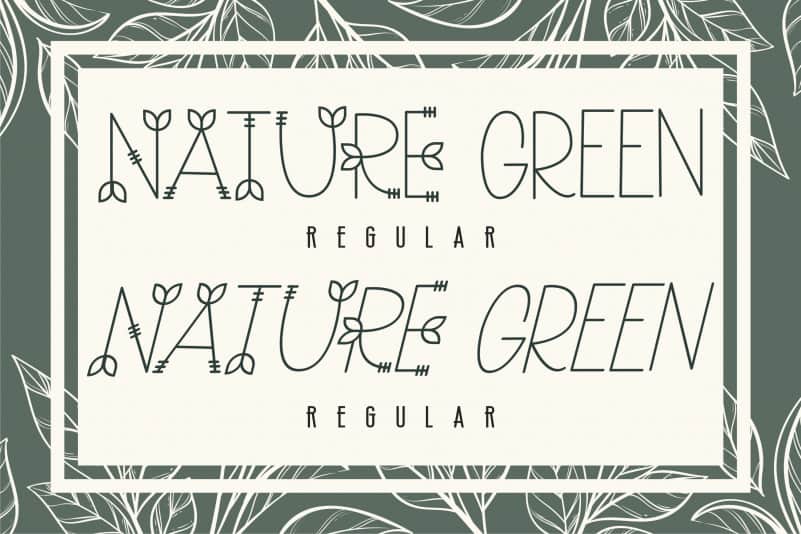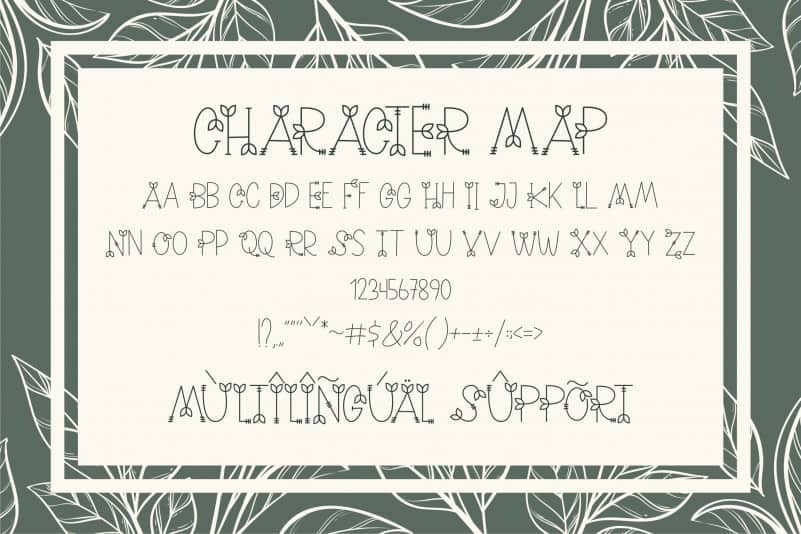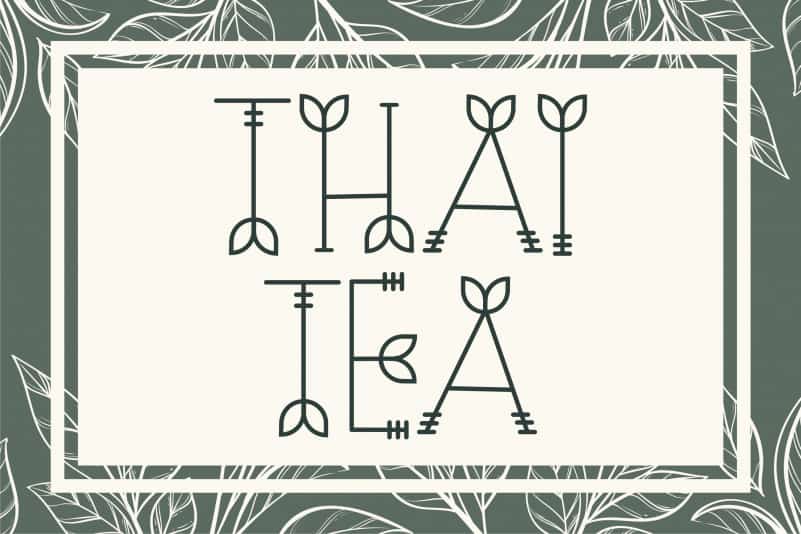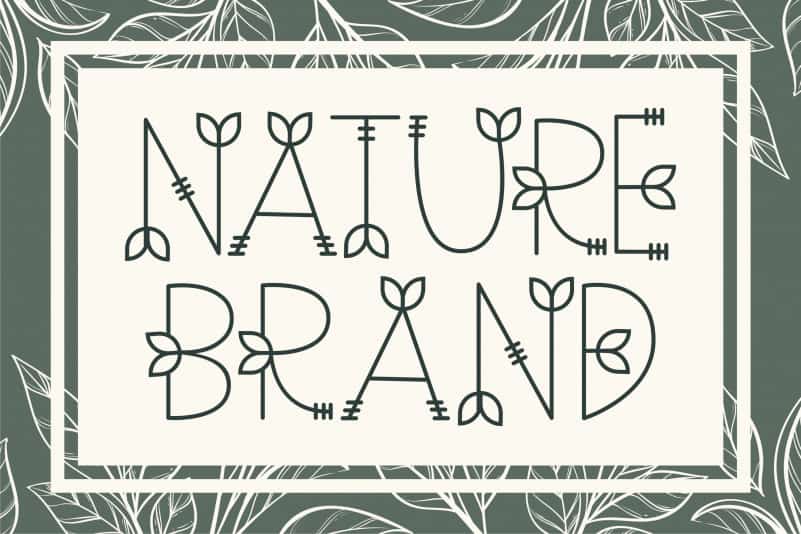
Nature Green Display Font is a neat and simple lettered handwritten font. No matter the topic, this font will be an incredibly asset to your fonts’ library, as it has the potential to elevate any creation.